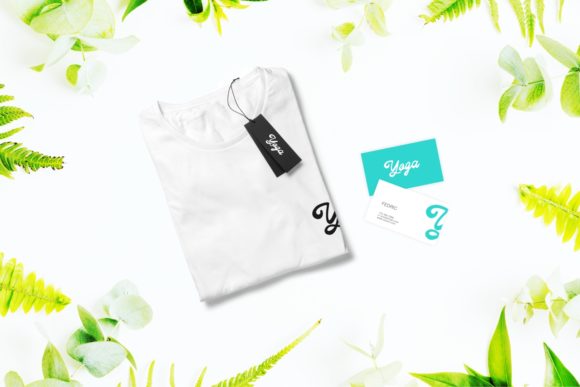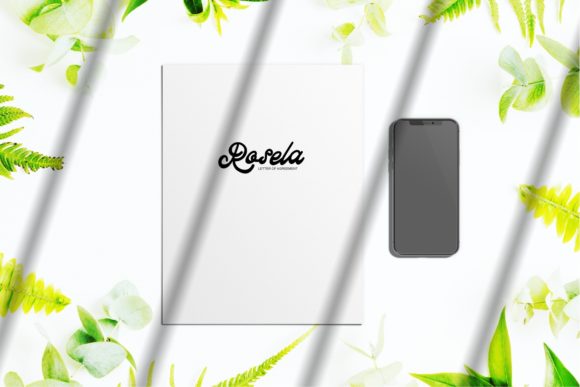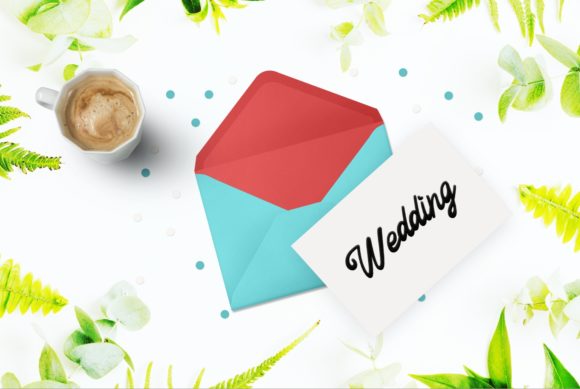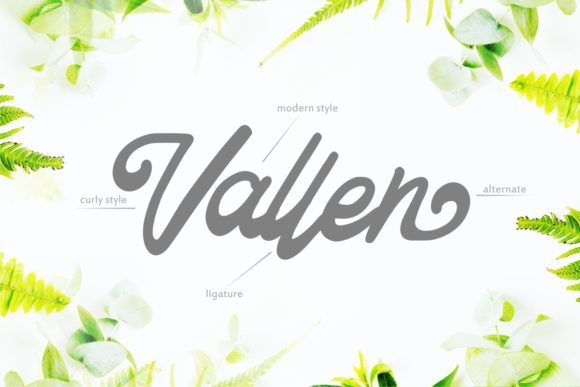
Introducing Angelia Font: The Perfect Blend of Swirly Swashes and Bold Strokes
Are you a designer or crafter looking for a unique and fun script font to elevate your creative projects? Look no further than Angelia Font! This stunning font combines swirly swashes and bold strokes into one exciting script that’s sure to capture attention. In this article, we’ll dive into the world of Angelia Font, exploring its features, benefits, and uses, as well as providing tips and inspiration for incorporating it into your designs.
The Unique Characteristics of Angelia Font
Angelia Font is a script font that boasts a distinctive blend of swirly swashes and bold strokes. The swashes add a touch of elegance and sophistication, while the bold strokes provide a sense of strength and confidence. The result is a font that’s both fun and refined, making it perfect for a wide range of creative projects. Whether you’re designing a logo, creating a craft project, or working on a branding campaign, Angelia Font is sure to make a statement.
Features and Benefits of Angelia Font
So, what makes Angelia Font so special? Here are just a few of its key features and benefits:
- Unique and eye-catching design: Angelia Font’s combination of swirly swashes and bold strokes makes it stand out from the crowd.
- Highly versatile: This font can be used for a wide range of creative projects, from logos and branding to crafts and DIY projects.
- Easily readable: Despite its decorative nature, Angelia Font is surprisingly easy to read, making it perfect for use in both digital and print materials.
- Customizable: With its range of swashes and alternate characters, Angelia Font can be tailored to suit your individual design needs.
Using Angelia Font in Your Designs
So, how can you incorporate Angelia Font into your designs? Here are a few ideas to get you started:
- Logos and branding: Use Angelia Font to create a unique and memorable logo that showcases your brand’s personality.
- Crafts and DIY projects: Add a touch of elegance and sophistication to your craft projects, such as handmade cards, gift tags, and scrapbook pages.
- Digital designs: Use Angelia Font in your digital designs, such as social media graphics, blog posts, and website headers.
- Print materials: Incorporate Angelia Font into your print materials, such as brochures, flyers, and business cards.
Tips for Getting the Most Out of Angelia Font
To get the most out of Angelia Font, here are a few tips to keep in mind:
- Experiment with different colors and textures: Angelia Font looks great in a range of colors and textures, so don’t be afraid to get creative.
- Mix and match with other fonts: Combine Angelia Font with other fonts to create a unique and visually interesting design.
- Use the swashes and alternate characters: Take advantage of Angelia Font’s range of swashes and alternate characters to add extra flair to your designs.
In conclusion, Angelia Font is a unique and exciting script font that’s perfect for designers and crafters looking to add a touch of elegance and sophistication to their creative projects. With its combination of swirly swashes and bold strokes, Angelia Font is sure to make a statement. So why not give it a try and see what amazing designs you can create?
| Font Name | Angelia Font |
| Author | Ian Mikraz |